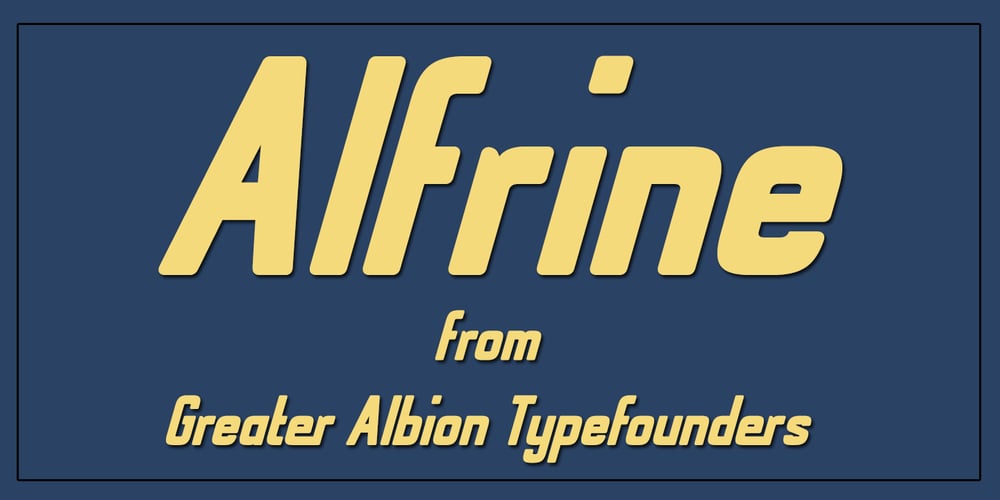
Alfrine
Alfrine font
Alfrine Font Family was designed by Paul James Lloyd and published by Greater Albion Typefounders. Alfrine contains 2 styles and family package options. Alfrine is a gently rounded oblique Sans-Serif typeface, ideal for banner text with a simple clear outline and a sense of motion and speed. Two typefaces are offered-regular and diagonally shaded forms.